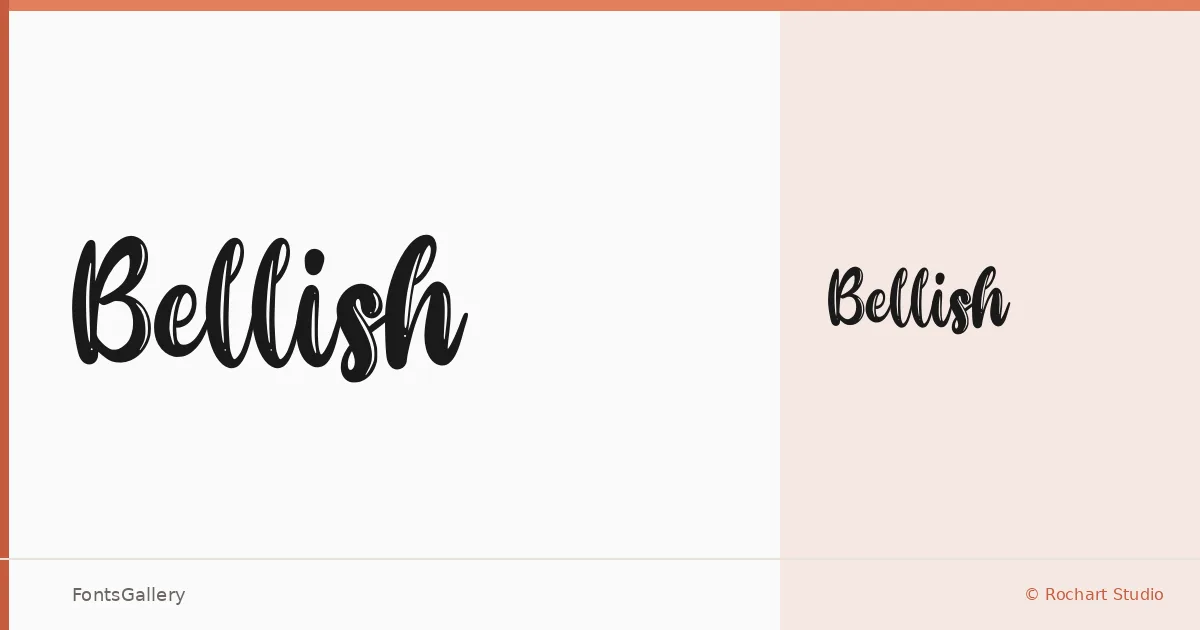
About Bellish Font
There is a looseness to this script that stops just short of casual — the strokes carry enough elegance to feel intentional, enough bounce to feel alive. Released by Rochart Studio, it arrives as a single Demo weight: Regular Demo, distributed as a TTF file. The letterforms lean into romance and play simultaneously, which is a harder balance to strike than it sounds.
This is a modern script that sits comfortably in the space between formal calligraphy and contemporary hand-lettering — romantic without being stiff, playful without losing refinement. The single Regular Demo style gives you a clear read on the family's voice: flowing connections, confident ascenders, and a rhythm that reads well at display sizes. Latin character support covers the expected range for Western European work. The TTF format installs cleanly, and embedding is permitted at the installable level.
The evident home for this script is anywhere emotion needs to lead: wedding stationery, invitation cards, greeting cards, and the kind of branding or logo work that wants warmth rather than corporate distance. For contrast pairings, the listed companions span a useful range — Canela and Adobe Caslon Pro offer serif softness, Helvetica and Asap bring clean sans-serif structure, and ABC Arizona sits somewhere between, giving you options depending on how formal or editorial the surrounding layout needs to feel.